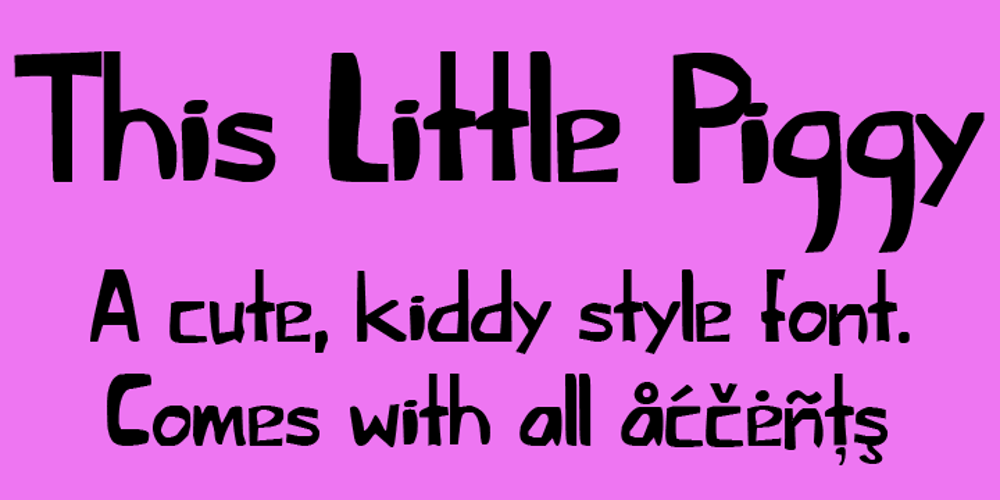
This Little Piggy Font Family was designed by David Kerkhoff and published by Hanoded. This Little Piggy contains 1 styles and family package options. This Little Piggy is a cute, kiddy-style font. A little haphazard, a little messy, but funny and happy. Great for wishing-well cards or books.